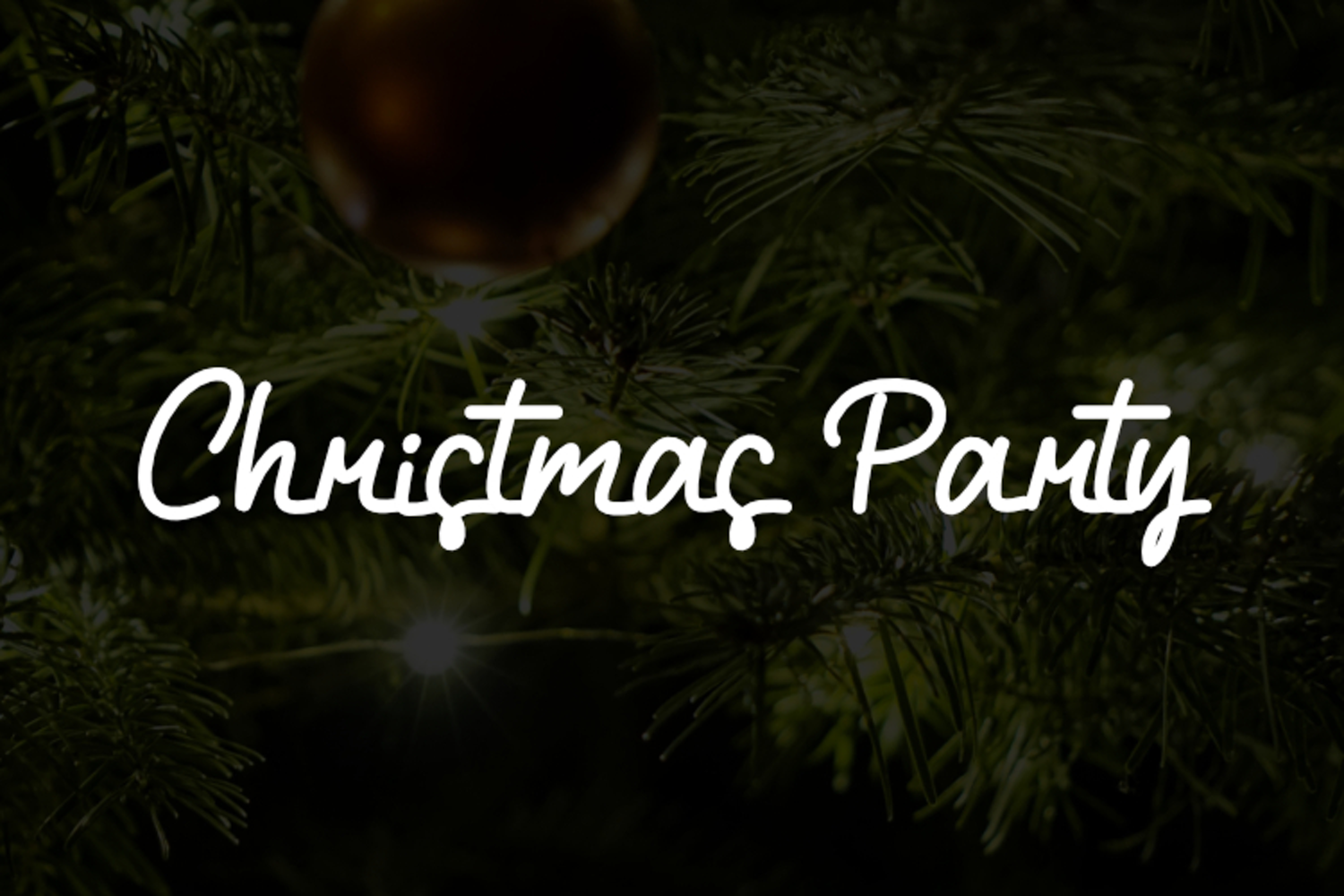
Christmas Party
Introduction: Christmas Party is a modern and elegant typeface designed for flexibility and excellent readability across a variety of media. With its .otf (OpenType Font) file format, this font offers superior cross-platform compatibility, making it an ideal choice for all design software and office applications, including Adobe Creative Suite, Microsoft Office, and other design software.